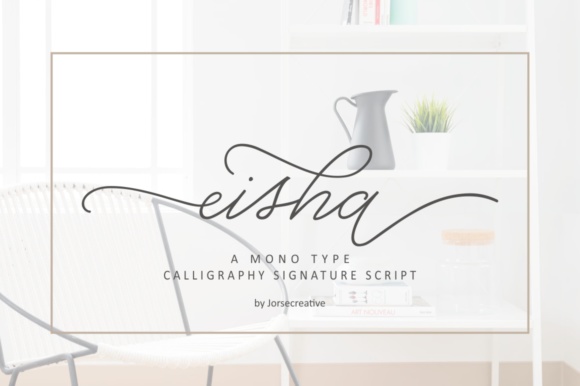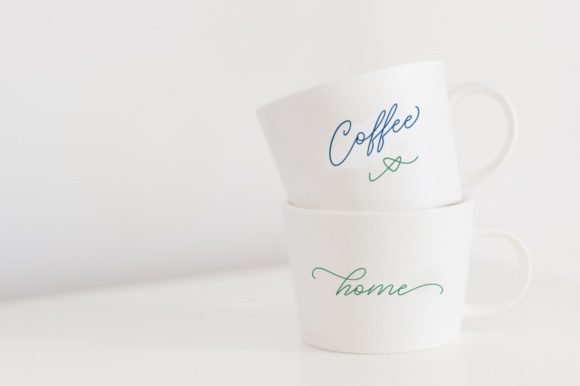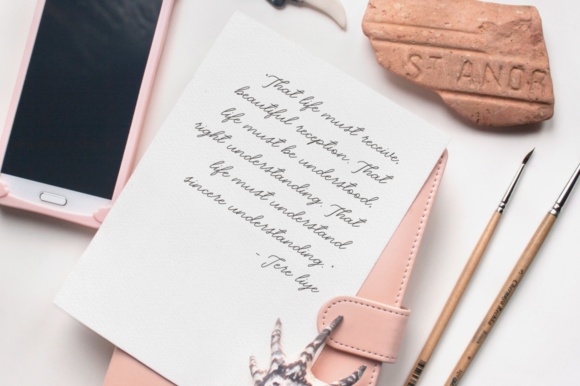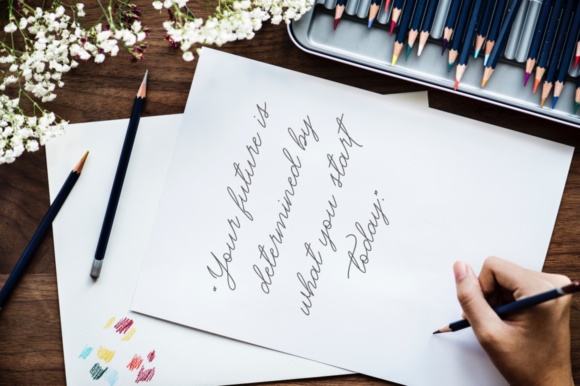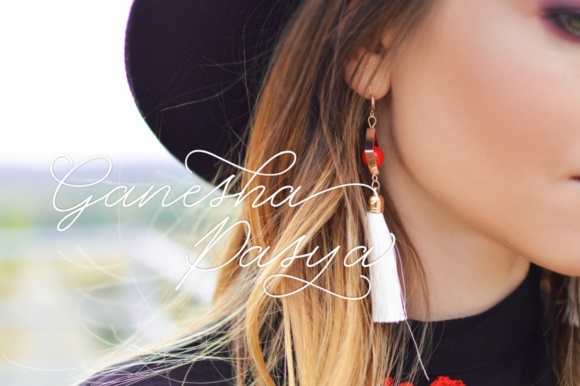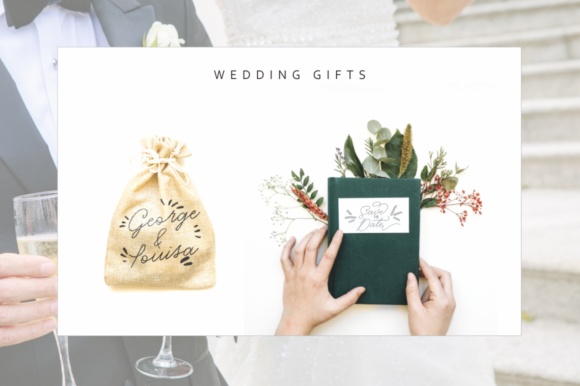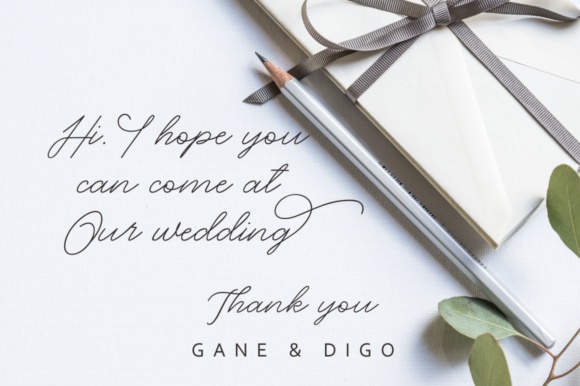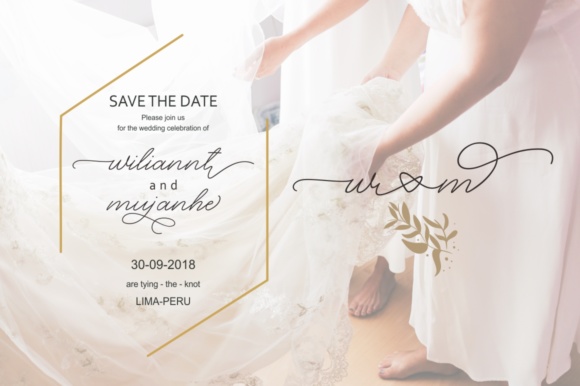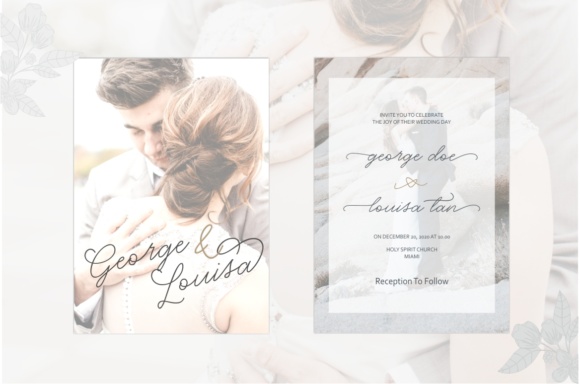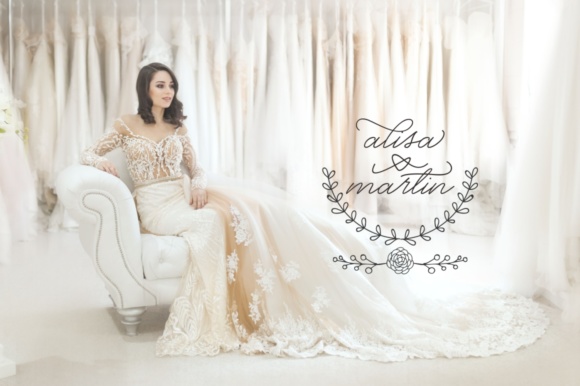
Eisha Script Font
About Eisha Script Font
The Eisha is a modern, handwritten calligraphic font with a sophisticated flow. It’s perfect for branding, wedding invitations, diaries, cups, mugs and greeting cards.
Eisha has a smooth texture, so it will be perfect for all kinds of printing techniques.